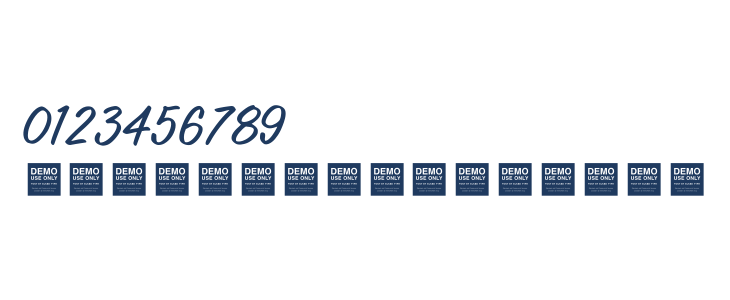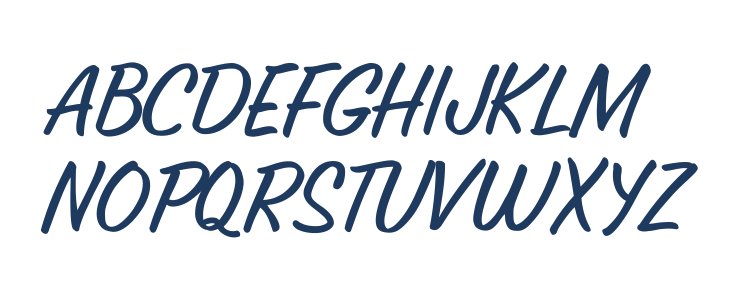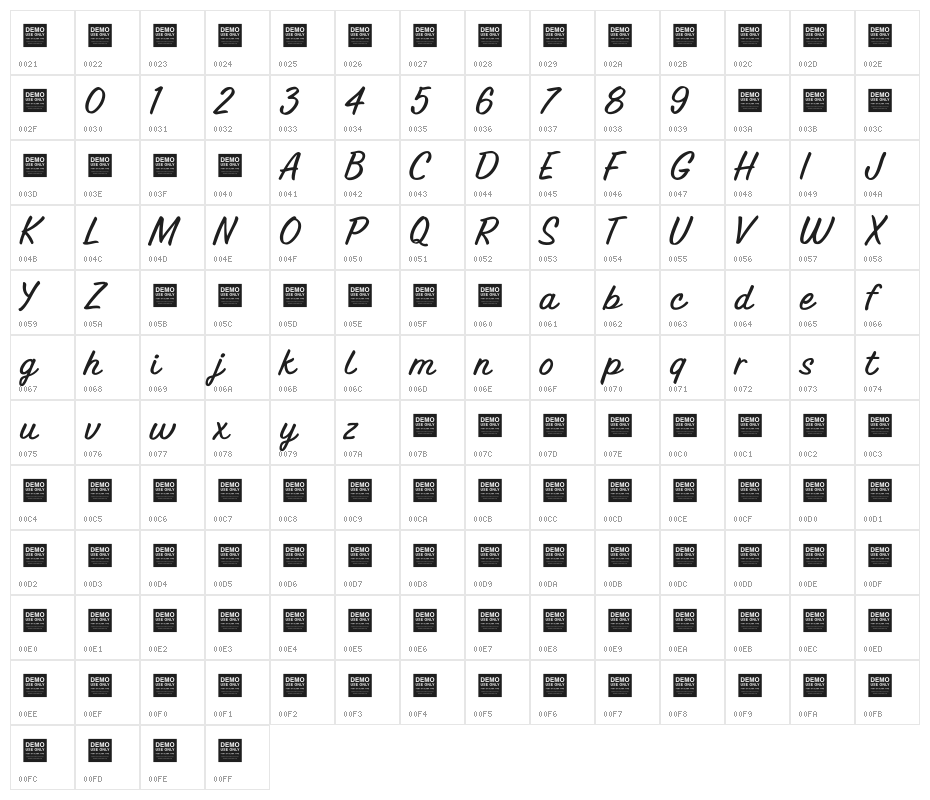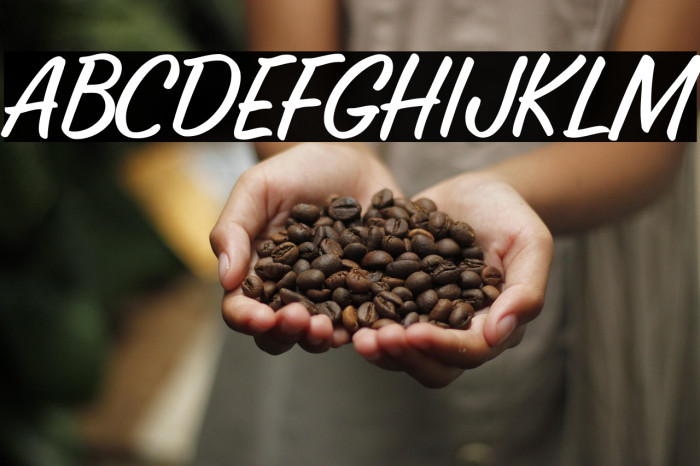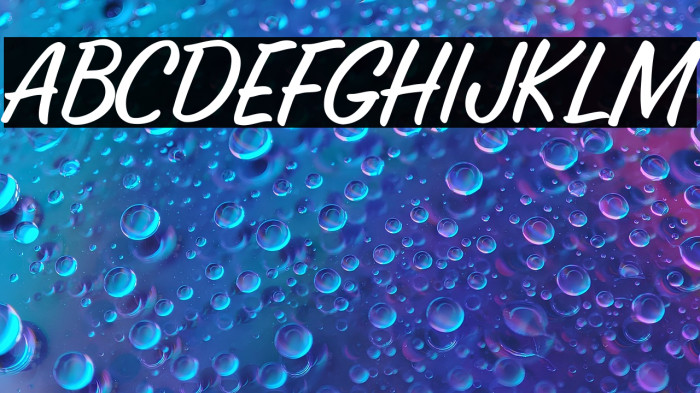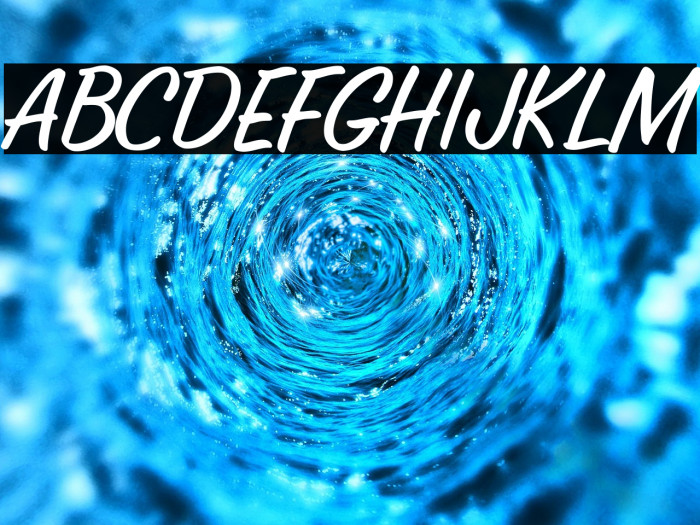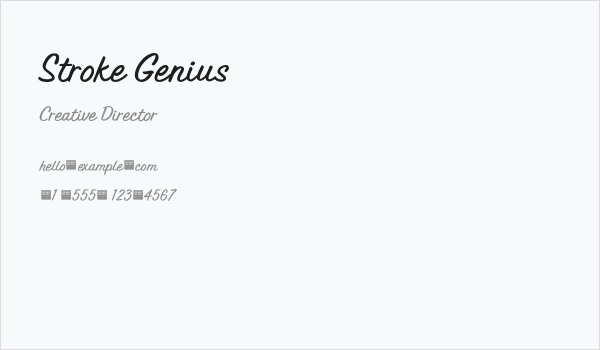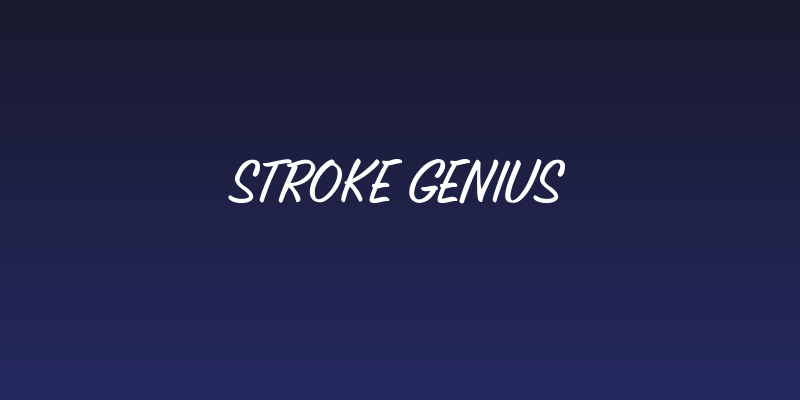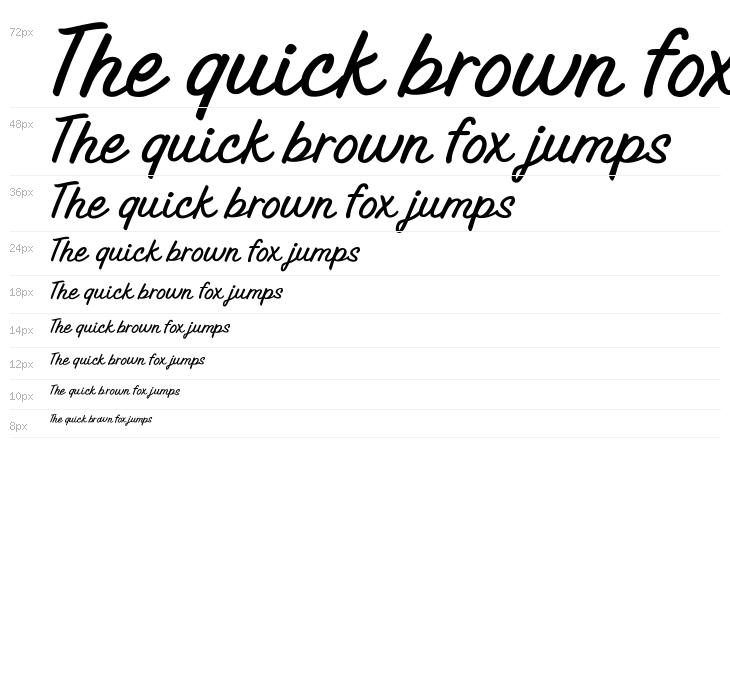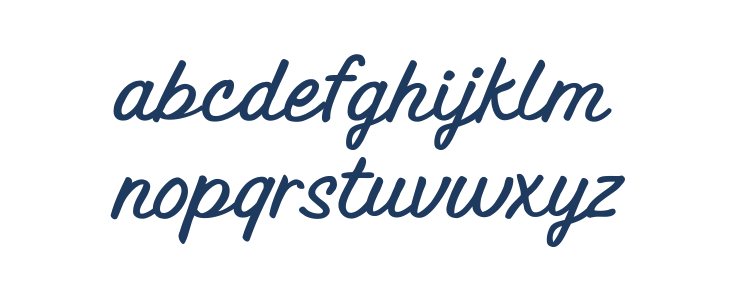
Stroke Genius Font
Stroke Genius Description
A casual, handwritten script font with smooth, flowing strokes and a natural, informal appearance. The characters are slightly slanted, mimicking natural handwriting, with consistent stroke thickness and rounded terminals.
| Overall Style | Casual, Handwritten, Informal |
| Use Case | Logos, Headlines, Short text, Invitations |
| Proposed Projects | Greeting cards, invitations, personal branding, quotes, casual posters, social media graphics. |